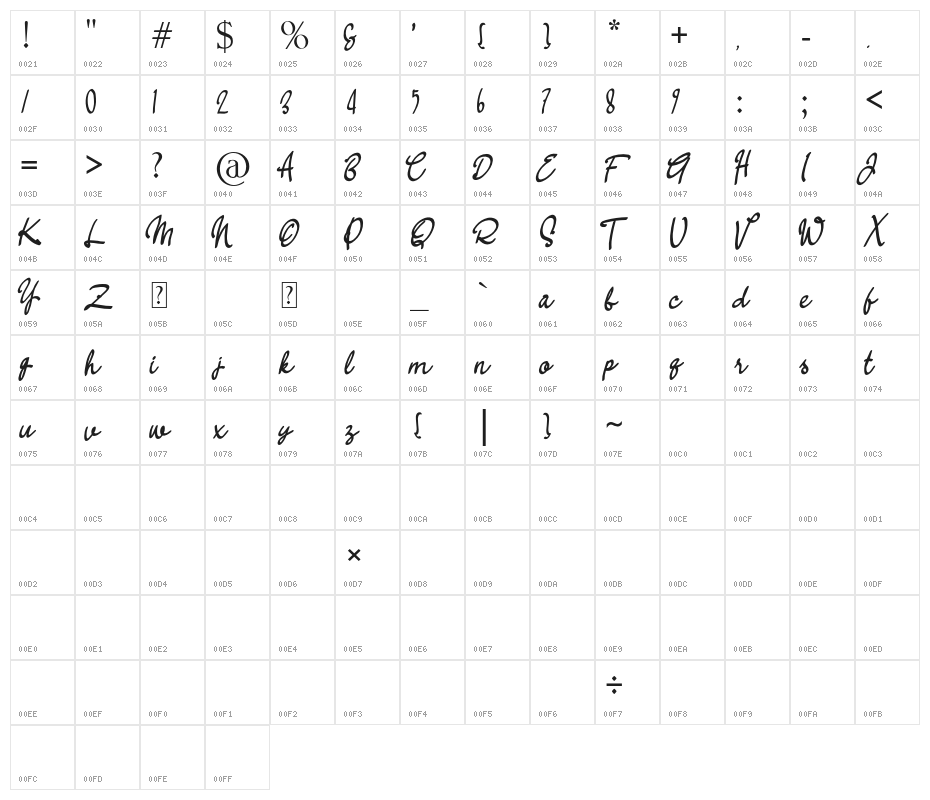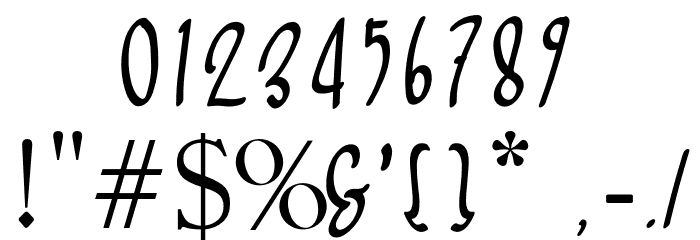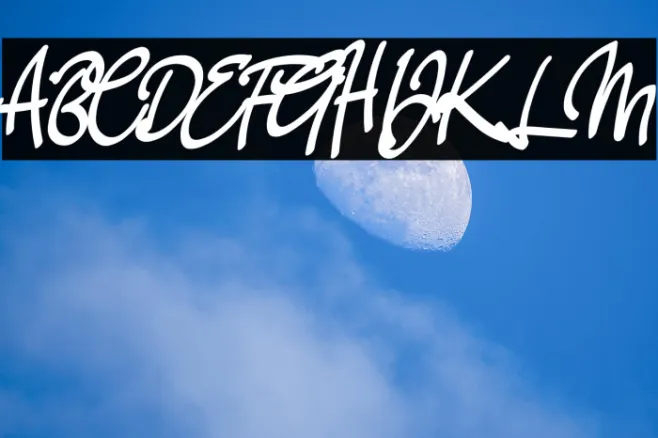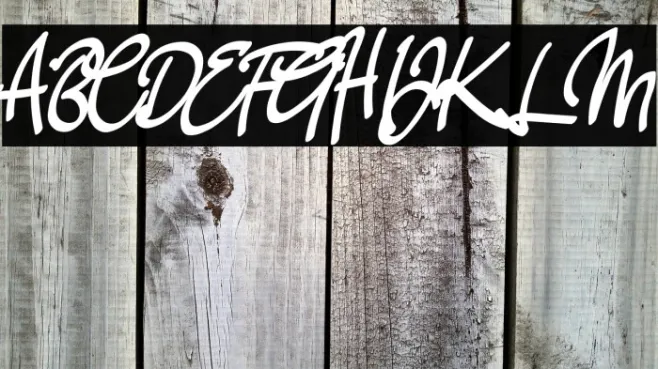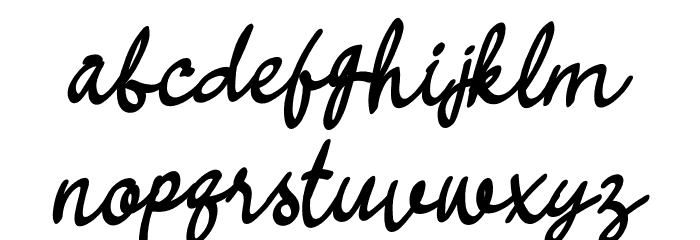
RABALI Font
RABALI Description
This font features a dynamic and expressive handwritten style, characterized by its fluid and cursive letterforms. The strokes are bold and slightly irregular, giving it a lively and personal touch. The uppercase letters are tall and slightly slanted, while the lowercase letters maintain a consistent flow, enhancing the script-like appearance. Numbers and special characters are crafted with the same energetic flair, making them cohesive with the overall design. This font exudes a sense of creativity and spontaneity, making it suitable for projects that require a personal or artistic touch.
| Proposed Projects | Ideal for greeting cards, invitations, personal branding, and artistic projects. |